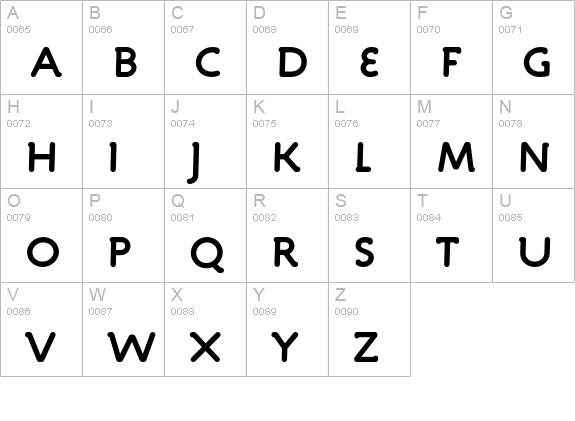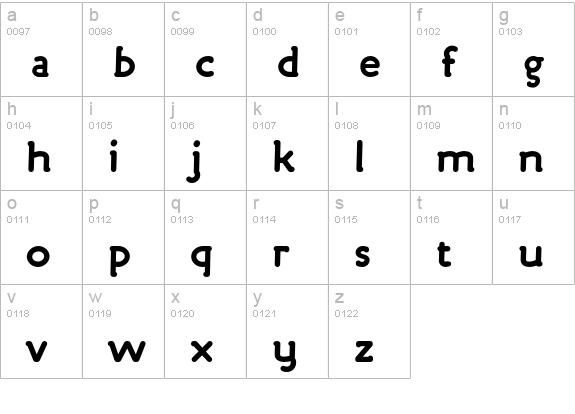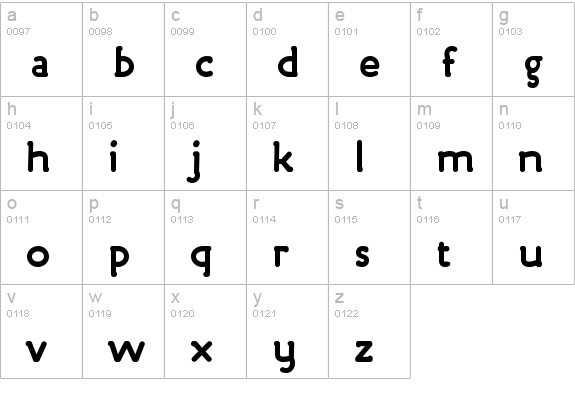
Engine-BoldLF is a sleek and modern font that exudes power and strength with its bold design. Perfect for making a bold statement in your designs, this font commands attention and ensures that your message is delivered loud and clear. With its clean lines and strong presence, Engine-BoldLF is a versatile choice for a wide range of design projects. What's even better is that Engine-BoldLF is available for free download at FontsMarket.com. This means that you can easily access this powerful font to enhance your projects without any additional cost. Don't miss out on the opportunity to elevate your designs with the striking impact of Engine-BoldLF - download it for free today at FontsMarket.com!